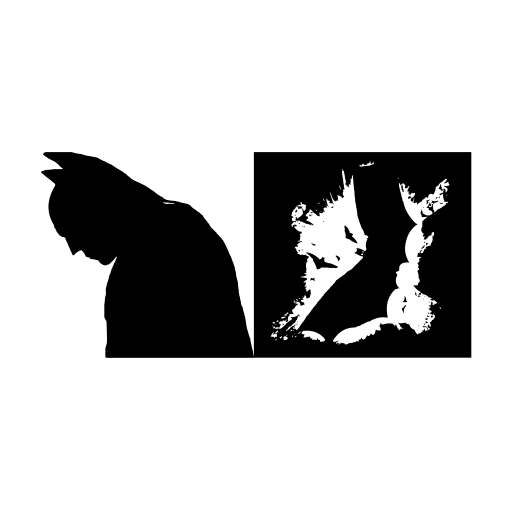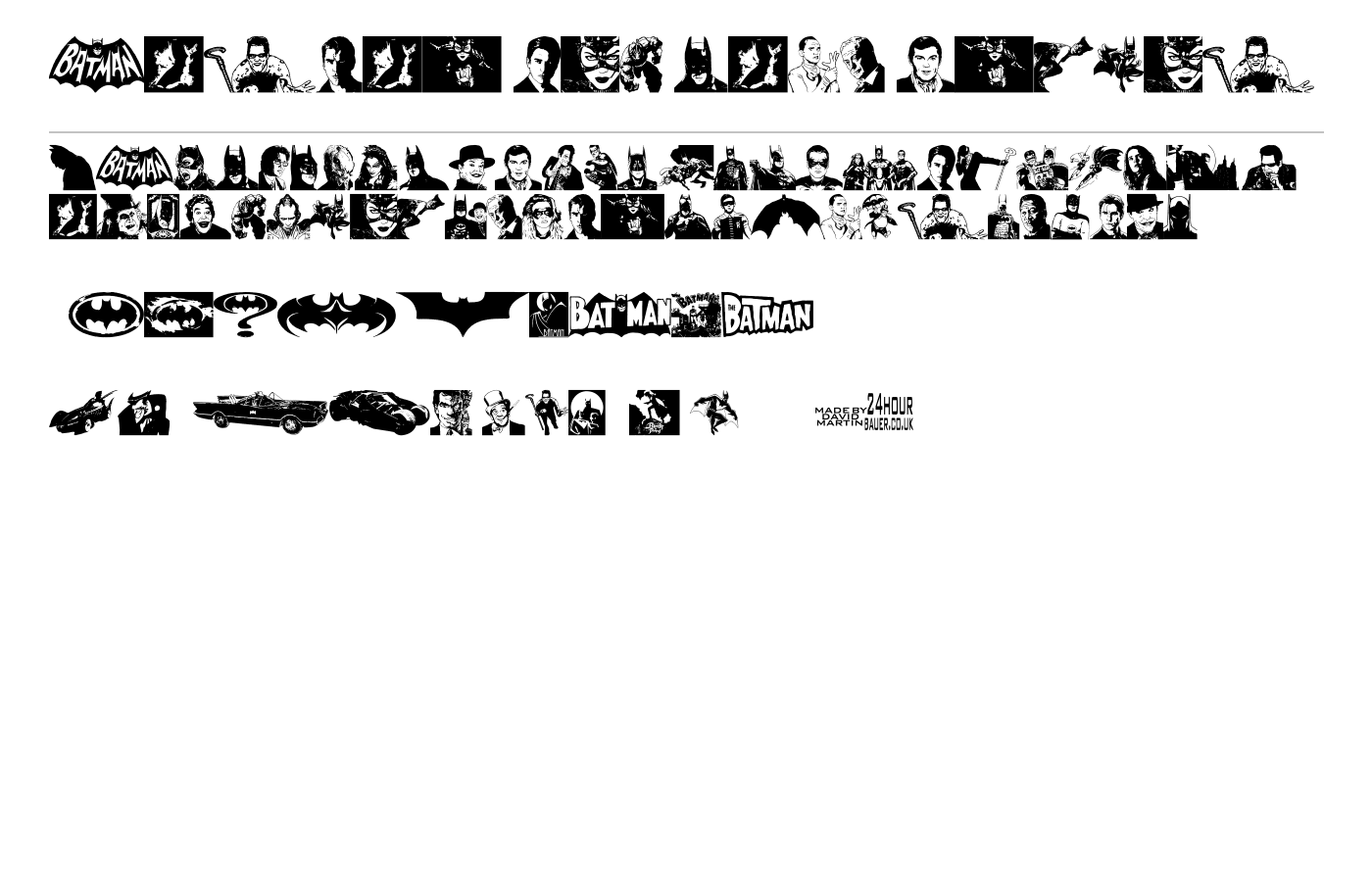
Batman The Dark Knight Font is a highly stylized display typeface featuring bold, dramatic letterforms inspired by comic book and superhero motifs. Its unique shapes and heavy black silhouettes evoke a dark, mysterious, and adventurous atmosphere, making it perfect for use in eye-catching logos, posters, and themed branding related to fantasy, action, or pop culture. This font stands out with its strong personality, capturing the essence of Gotham's iconic hero through its graphic and theatrical design.
Batman The Dark Knight Font
About Batman The Dark Knight Font